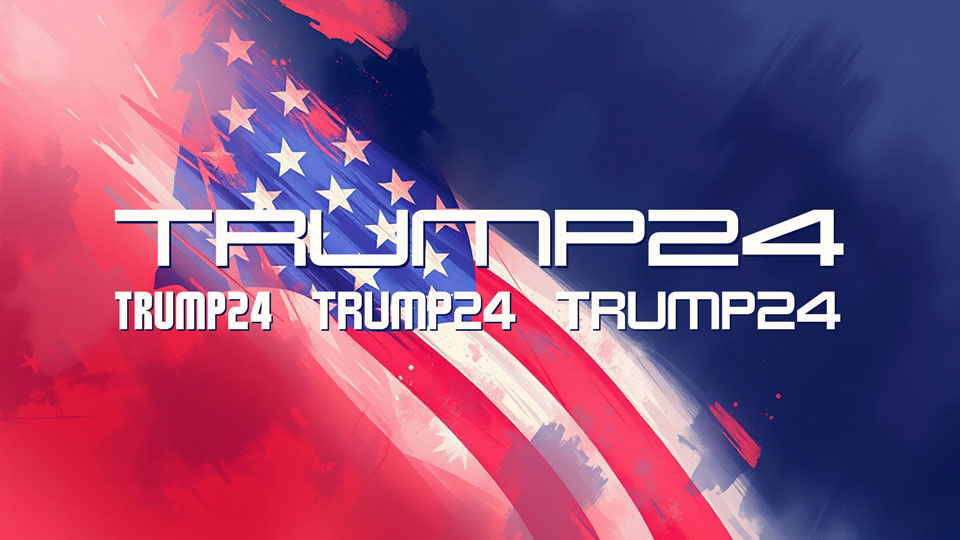
Trump24 Font Family › Fontesk – Download Grátis
Download Trump24 font, a bold and powerful display typeface that commands attention with its strong geometric structure and versatile styles.
Designer: Rob Hindley